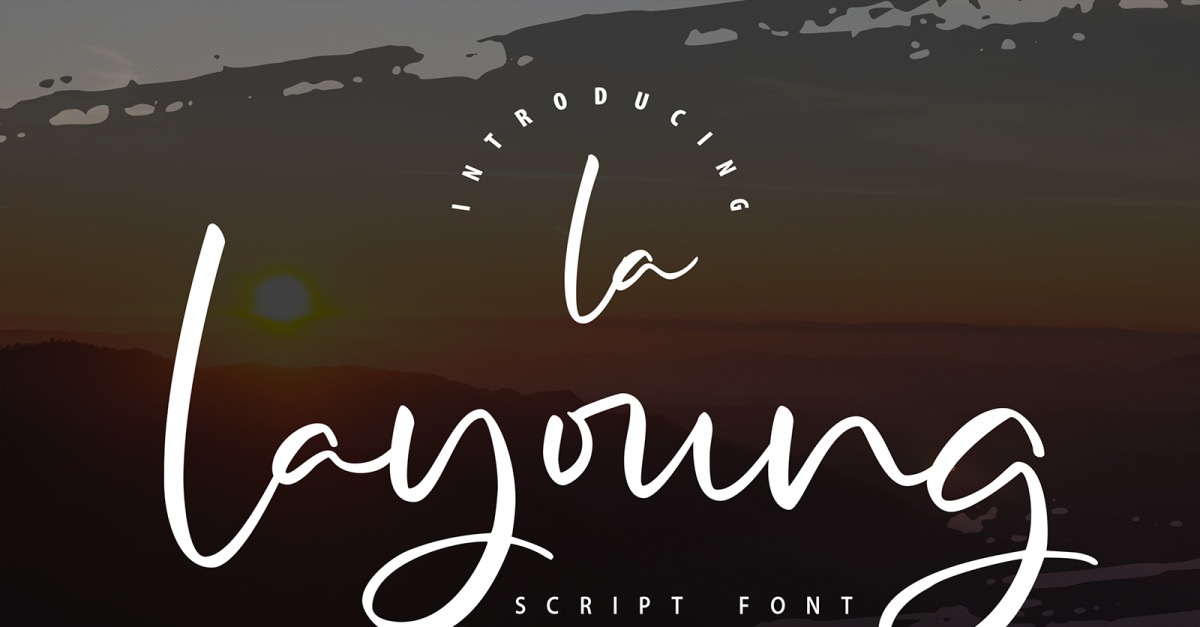
La Layoung | Cursive Font
**La Layoung | Script Font** with a calligraphy style, So beautiful on invitation like greeting cards, branding materials, business cards, quotes, posters, and more!